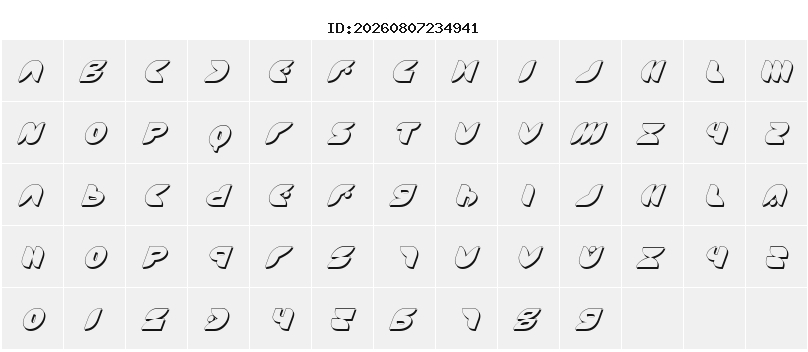
Puff Angel Shadow Italic Preview
• Font Name: Puff Angel Shadow Italic
• Font Style: Shadow Italic
• Full Font Name: Puff Angel Shadow Italic
About Puff Angel Shadow Italic.ttf
Puff Angel Shadow Italic.ttf is a modern, elegant sans-serif font designed for ultimate readability and visual harmony. Perfect for branding, headlines, web design, and print materials.